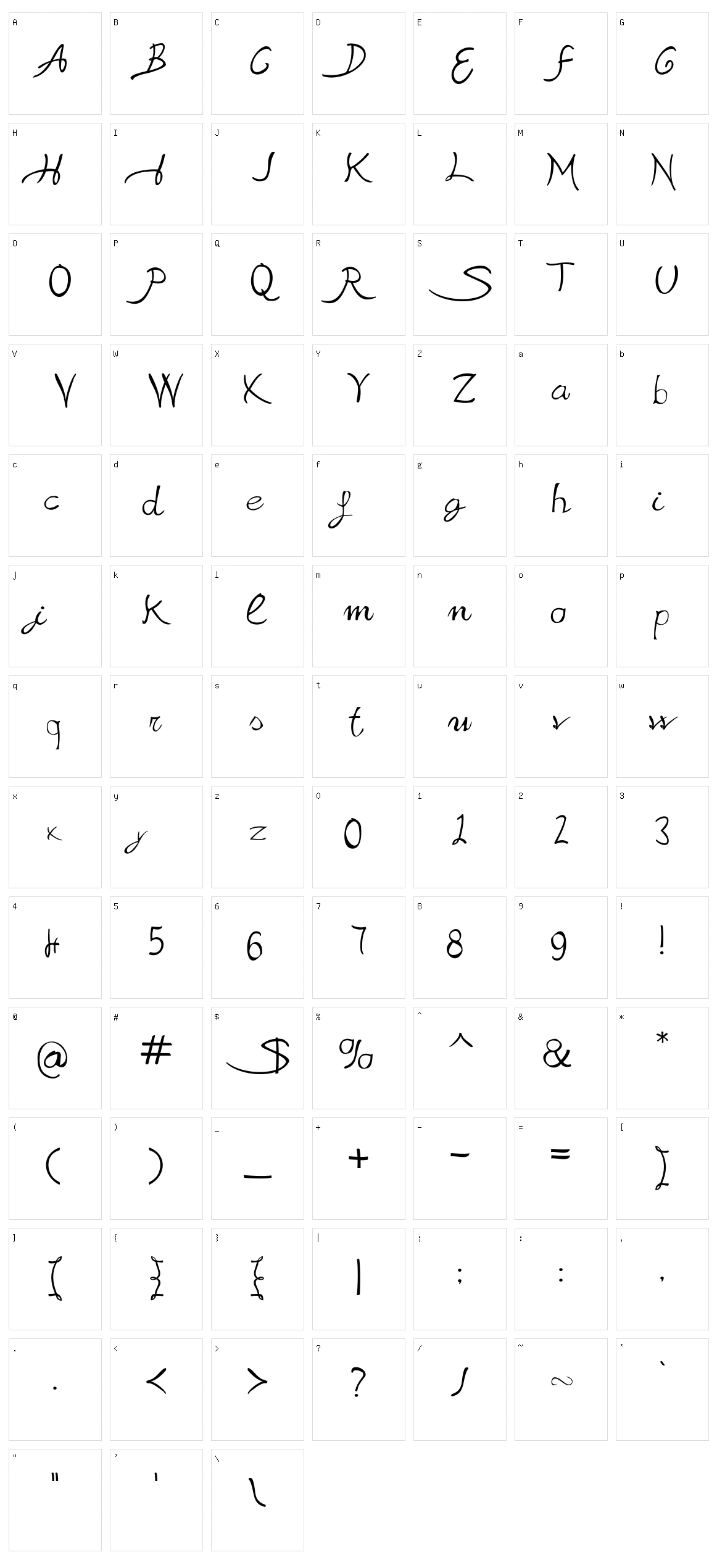
x SABRINA FONT x
x AUDREY HEPBURN COLLECTION x x
Font name: SABRINA FONT (Audrey Hepburn Collection) - Latin Decorative font (versione 1.0)
Type designer: P. A. Vannucci
SABRINA font: direttamente dal film diretto da Billy Wilder,interpretato
da una indimenticabile AUDREY HEPBURN e da HUMPHREY BOGART,il font inedito per tutti gli estimatori
del film. Da notare il ritocco necessario in Photoshop per conferire, alla titolazione, l'originale bordatura.
SABRINA font: directly from the Best movie by Billy Wilder, with AUDREY HEPBURN and HUMPHREY BOGART,
the original font for all lovers. Use ADOBE Photoshop for the original border from title.